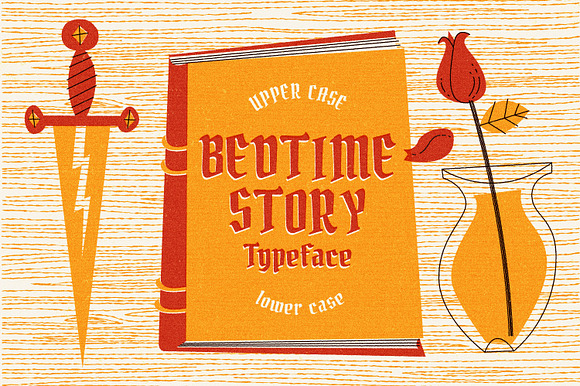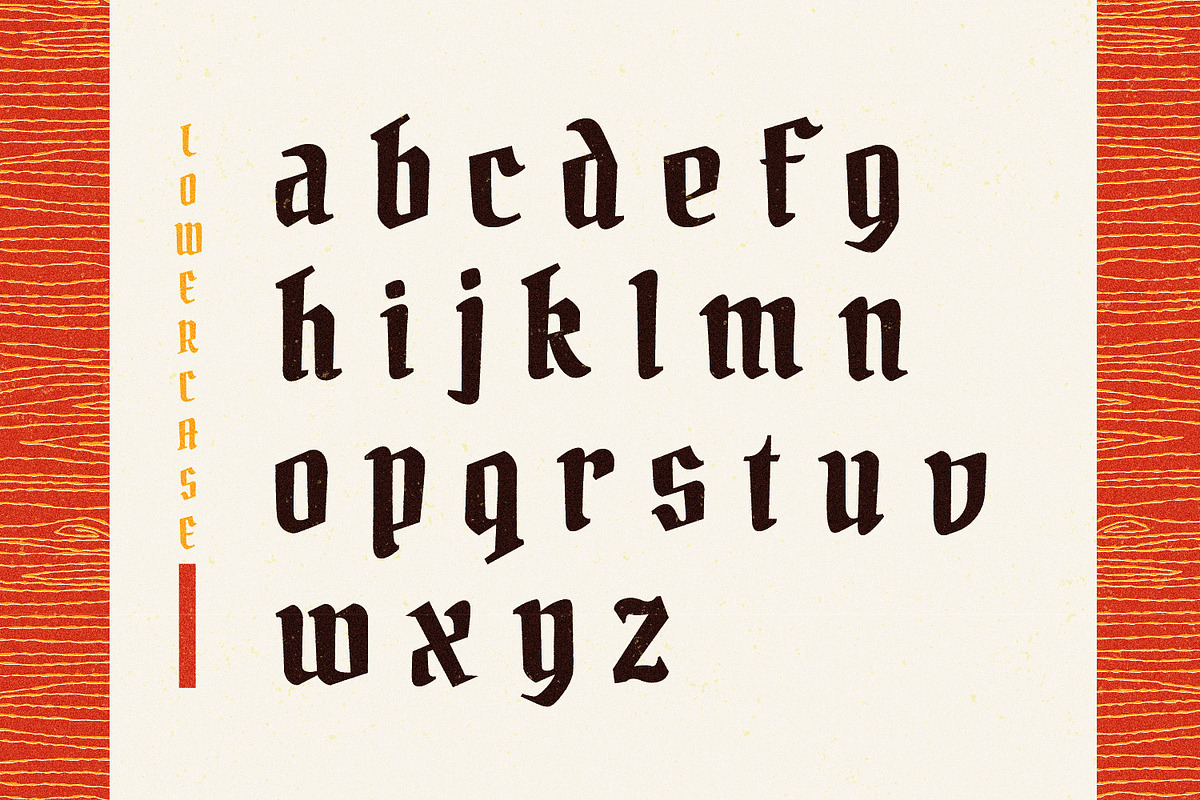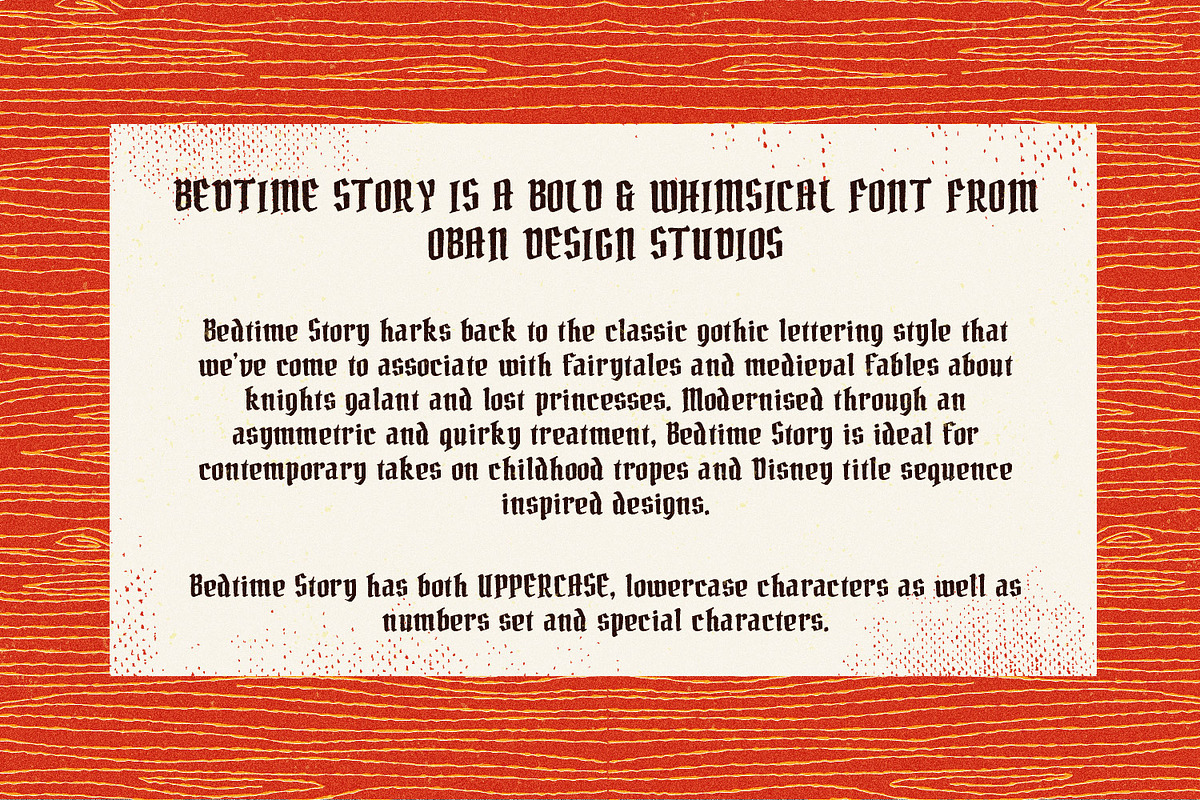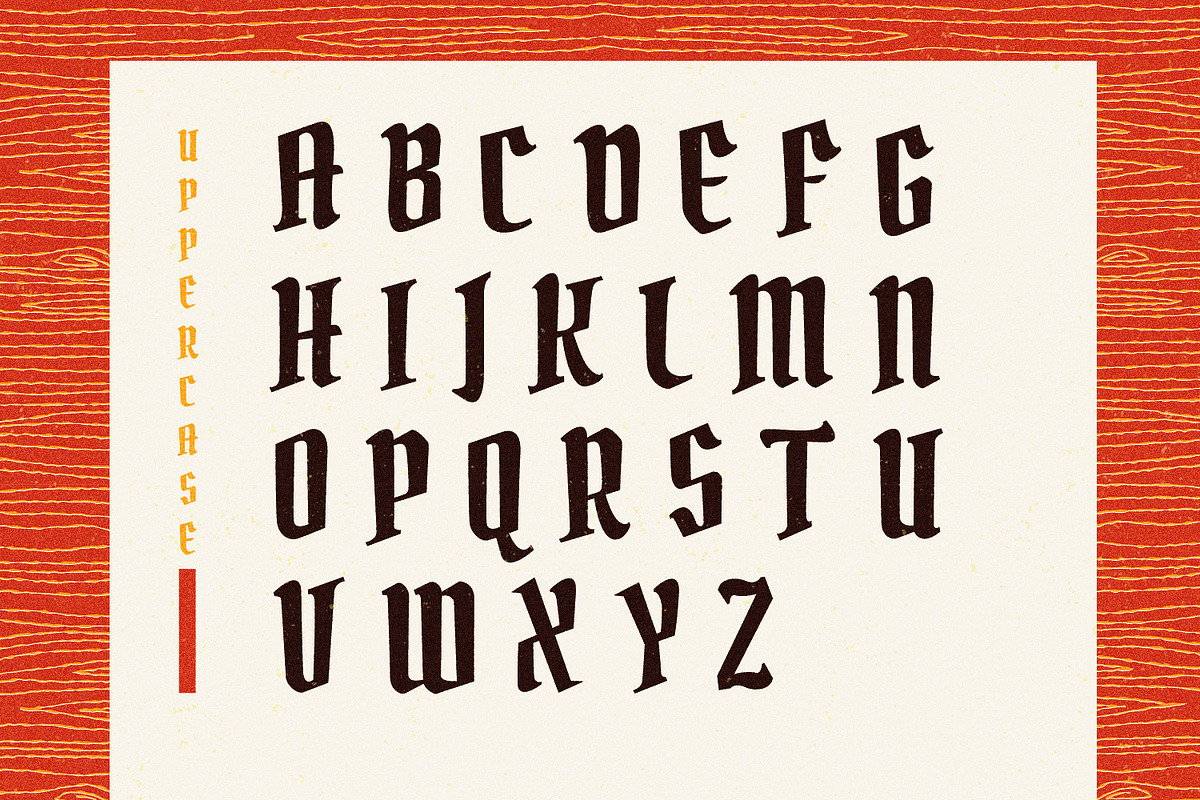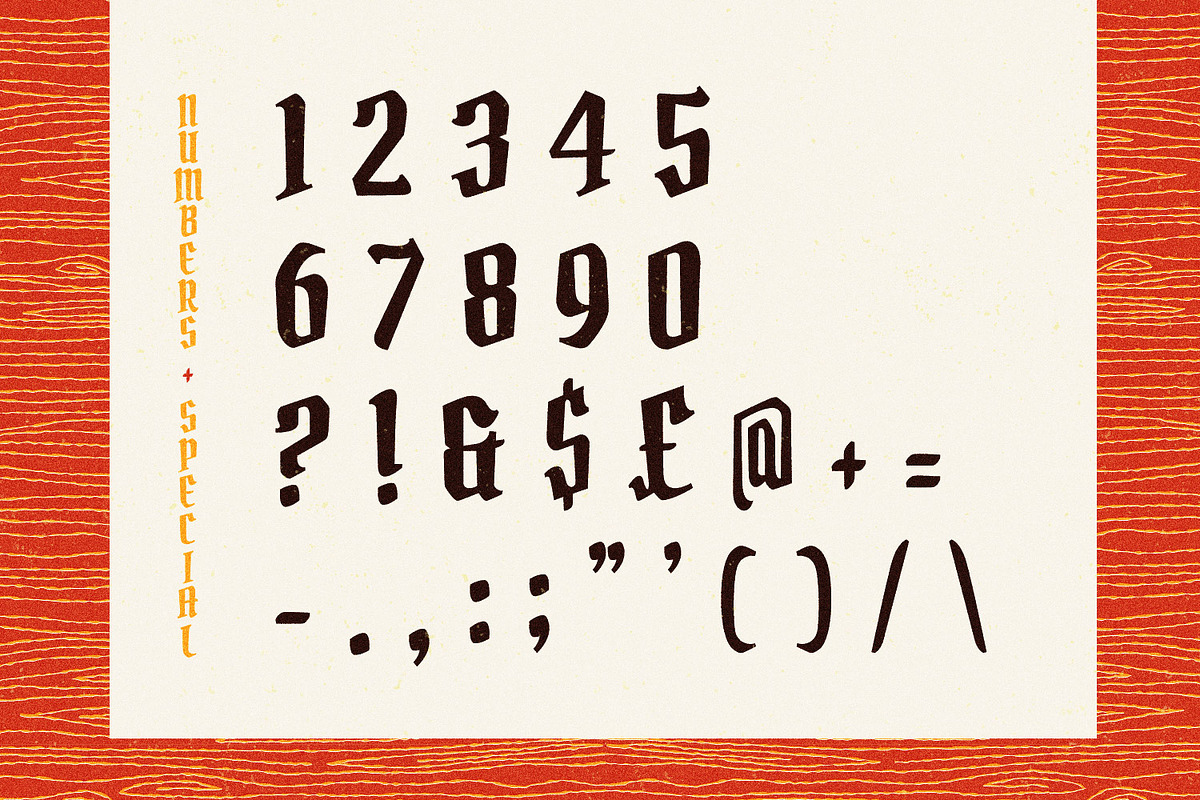
Bedtime Story Typeface
BEDTIME STORY IS A BOLD & WHIMSICAL FONT FROM OBAN DESIGN STUDIOS
Bedtime Story harks back to the classic gothic lettering style that we've come to associate with fairytales and medieval fables about knights galant and lost princesses. Modernised through an asymmetric and quirky treatment, Bedtime Story is ideal for contemporary takes on childhood tropes and Disney title sequence inspired designs.
Bedtime Story has both uppercase, lowercase characters as well as numbers set and special characters.